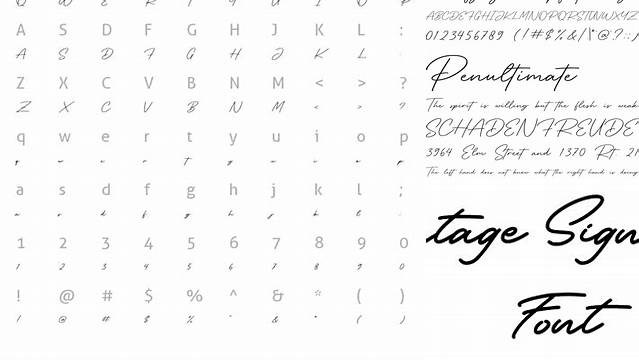
Hey guys! Are you on the hunt for that perfect retro font to inject some vintage vibes into your designs? Well, you're in luck! Today, we're diving deep into the world of retro signature regular fonts and, more importantly, how you can snag one for free. Let's get started!
What is a Retro Signature Regular Font?
First things first, let's define what we mean by a "retro signature regular font." In essence, it's a typeface that mimics the style of handwriting or signatures from past eras, typically the mid-20th century. Think of the kind of fonts you might see on old movie posters, vintage advertisements, or classic book covers. These fonts often have a flowing, script-like appearance but with a distinctly retro flair. They aim to capture the elegance and personality of handwritten signatures while maintaining readability.
The term "regular" in this context usually refers to the font's weight, meaning it's neither too bold nor too light. This makes it versatile for a variety of applications, from headings and logos to body text in certain designs. A good retro signature regular font strikes a balance between style and functionality, allowing it to be used in both prominent and subtle ways. The appeal of these fonts lies in their ability to evoke nostalgia and add a touch of class to any project. Whether you're working on a branding campaign, a website design, or even a personal project, a retro signature font can bring a unique and eye-catching element to your work.
Furthermore, the beauty of a retro signature font lies in its ability to convey a sense of authenticity and craftsmanship. In a world dominated by digital precision, these fonts remind us of a time when things were made by hand, adding a human touch to our designs. They can create a feeling of warmth and familiarity, making your audience feel connected to your brand or message on a more personal level. So, if you're looking to add a touch of vintage charm and sophistication to your projects, a retro signature regular font might just be the perfect choice.
Why Use a Retro Signature Font?
Okay, so why should you even bother with a retro signature font? Here's the deal: these fonts are fantastic for adding a touch of nostalgia and personality to your projects. Imagine you're designing a logo for a vintage clothing store. A modern, sans-serif font might look out of place, but a retro signature font? That's the ticket! These fonts evoke a sense of history and craftsmanship, making them perfect for branding, invitations, posters, and more.
Retro signature fonts are incredibly versatile. They can be used in a wide range of projects, from digital designs to print materials. For instance, they can add a sophisticated touch to wedding invitations, making them feel more personal and unique. In the world of web design, they can be used to create eye-catching headings and logos that stand out from the crowd. Furthermore, these fonts are excellent for creating a cohesive brand identity. By using a retro signature font across all your marketing materials, you can establish a consistent look and feel that resonates with your target audience. This is especially effective for businesses that want to convey a sense of tradition, quality, and attention to detail.
Moreover, the use of retro signature fonts can significantly enhance the visual appeal of your content. They bring a unique aesthetic that captures the viewer's attention, making your designs more memorable and engaging. Whether you're creating a poster for a retro-themed event or designing a website for a vintage product, these fonts can add the perfect touch of authenticity. They help to create a strong visual narrative, telling a story that connects with the viewer on an emotional level. So, if you're looking to make your designs stand out and leave a lasting impression, a retro signature font is definitely worth considering.
- Google Fonts: Google Fonts is a treasure trove of free fonts, and you might just stumble upon a retro signature gem there. Just search for terms like "signature," "retro," or "script" and browse the results.
- DaFont: DaFont is another excellent resource with a vast collection of user-submitted fonts. Be sure to check the license before using any font, as some may only be free for personal use.
- FontSpace: Similar to DaFont, FontSpace offers a wide variety of free fonts. Again, double-check the license to ensure it suits your needs.
- Creative Market (Free Goods): Creative Market offers a selection of free goods every week, which sometimes includes fonts. Keep an eye on their freebies section – you might get lucky!
- MyFonts: While MyFonts primarily sells fonts, they occasionally offer free fonts as part of promotions. It's worth checking their website from time to time.
Choosing the right font can be tricky, even when you know what you're looking for. Here are some tips to help you make the best choice:
- Readability: First and foremost, make sure the font is readable! A beautiful font is useless if no one can actually read it. Test it out in different sizes and contexts to ensure it's legible.